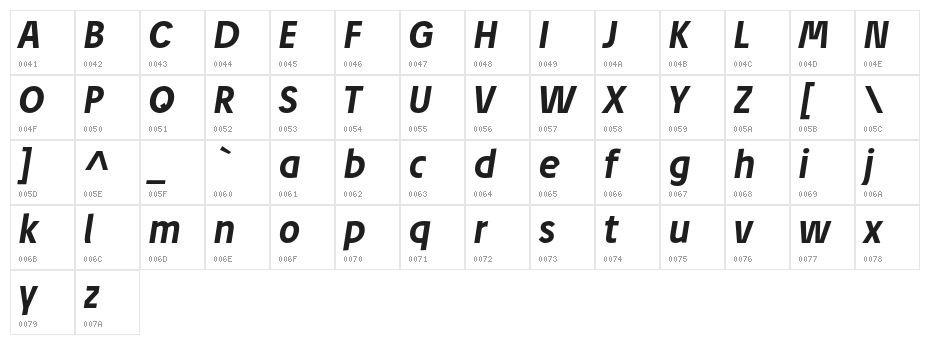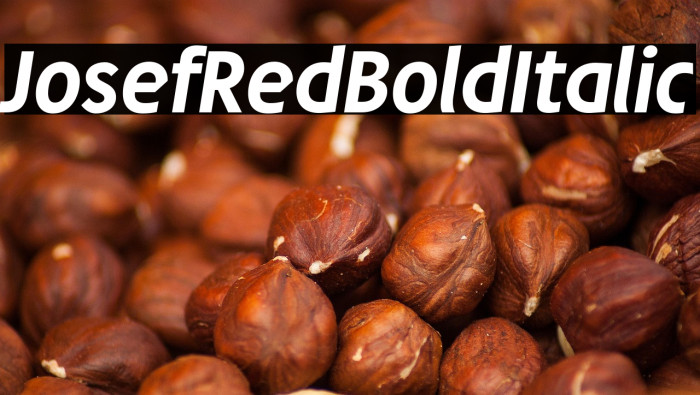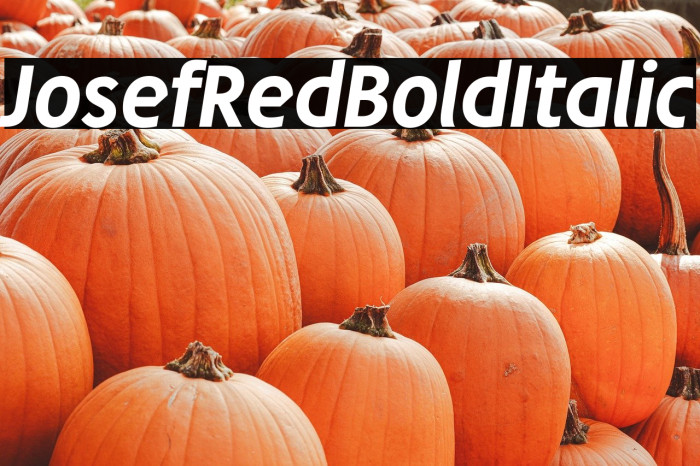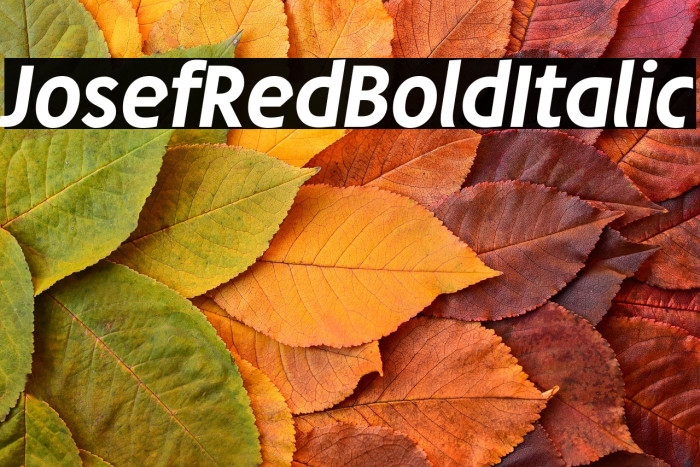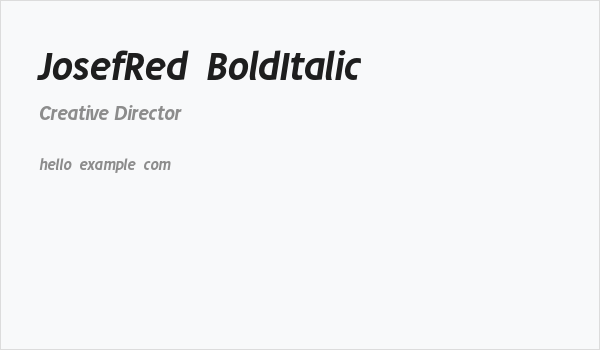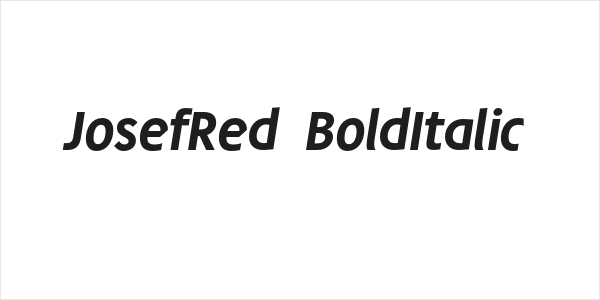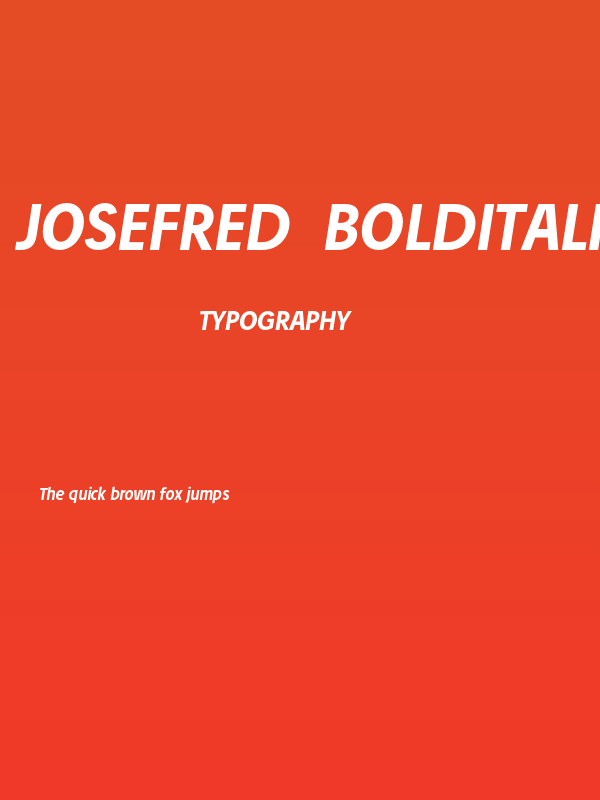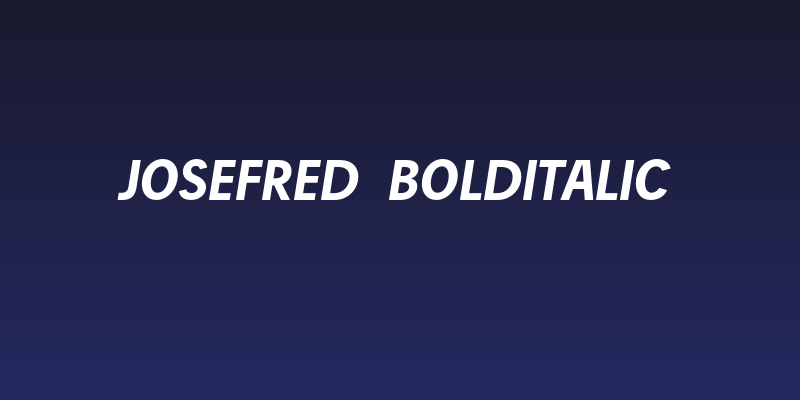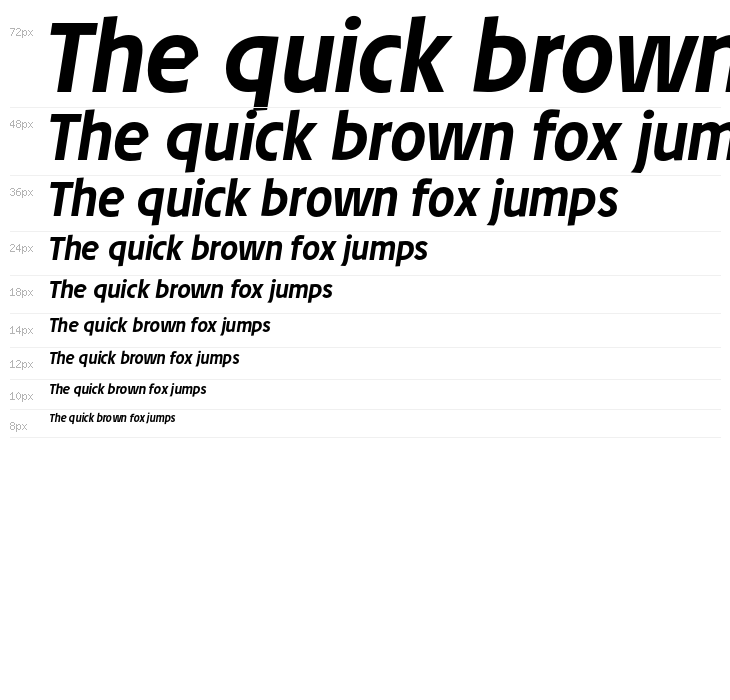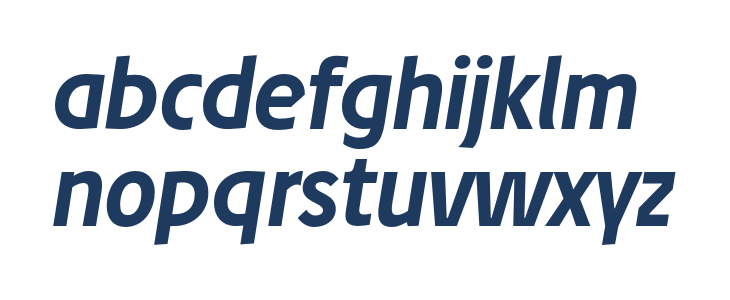
JosefRed-BoldItalic Font
JosefRed-BoldItalic Description
This font features a bold and italicized style, offering a modern and dynamic appearance. The characters are slightly slanted, adding a sense of movement and energy. The strokes are consistent in thickness, providing a uniform look across all letters. The font maintains a clean and professional aesthetic, making it suitable for a variety of design applications. Its bold weight ensures strong visibility, while the italic style adds a touch of elegance and sophistication. The character spacing is normal, allowing for easy readability without appearing cramped. This font is versatile and can be used effectively in both digital and print media.